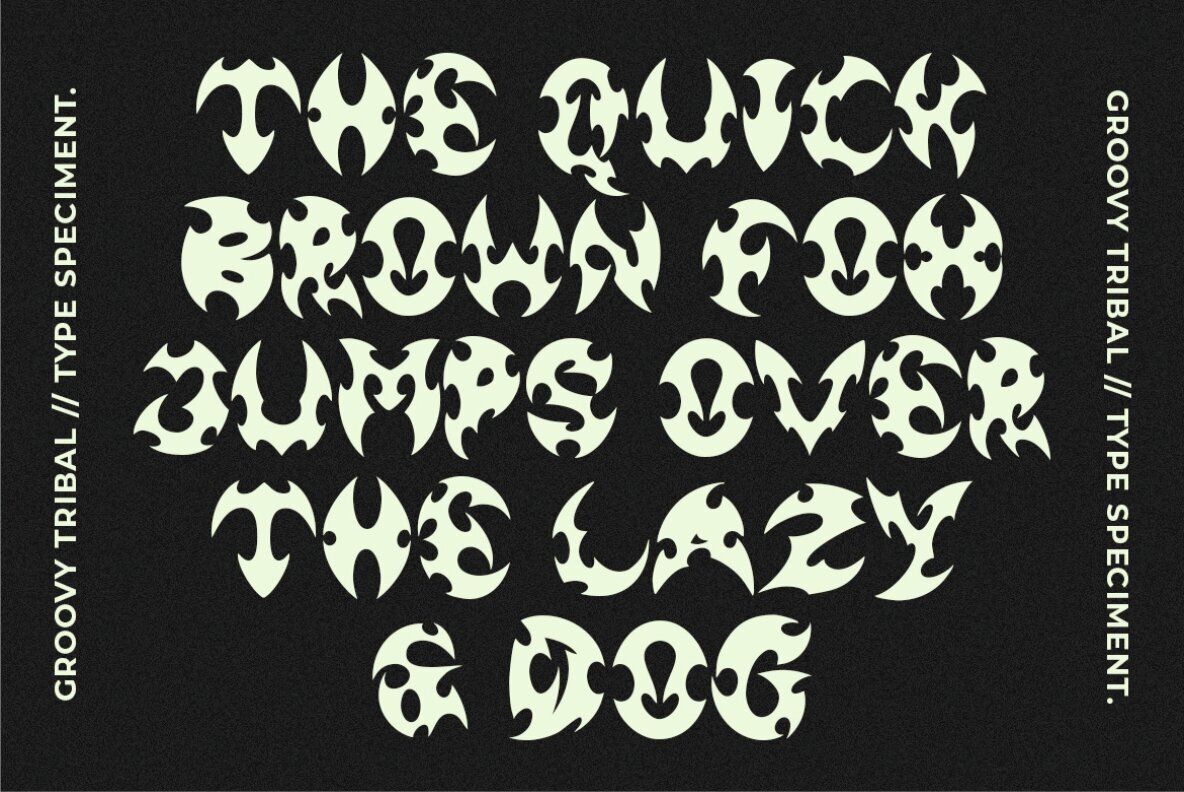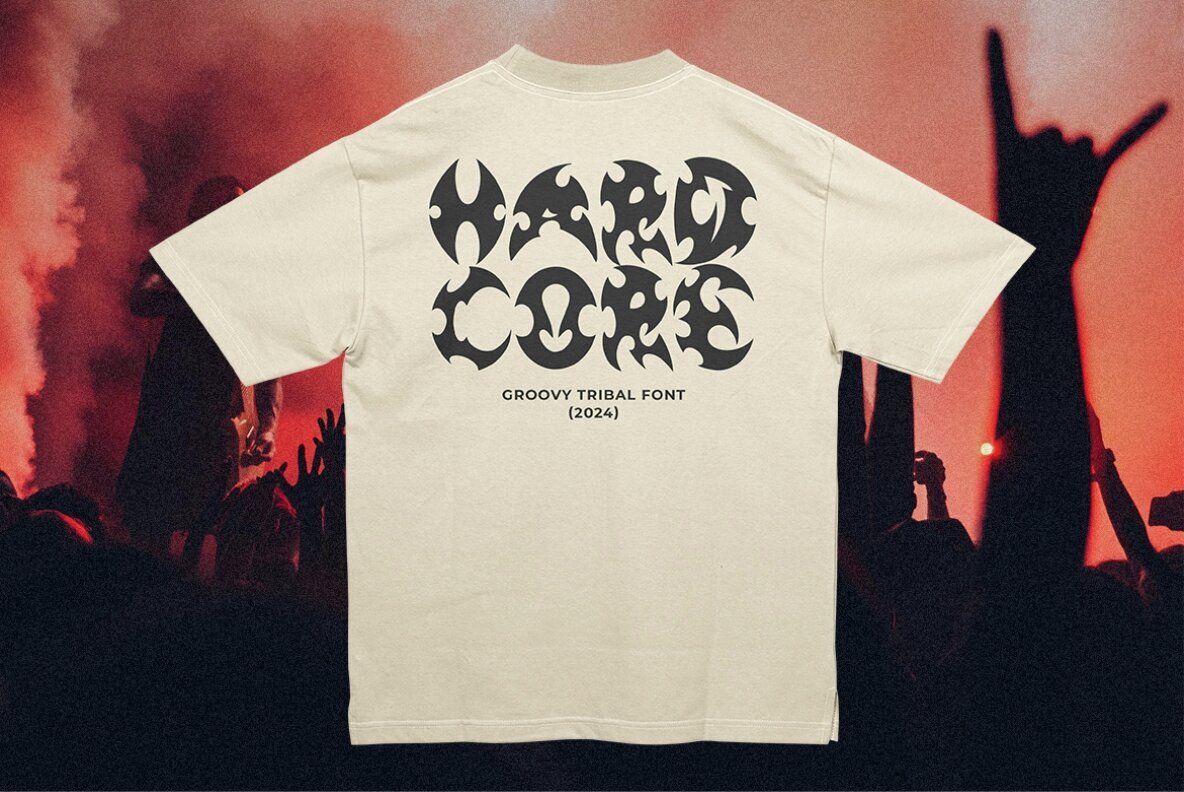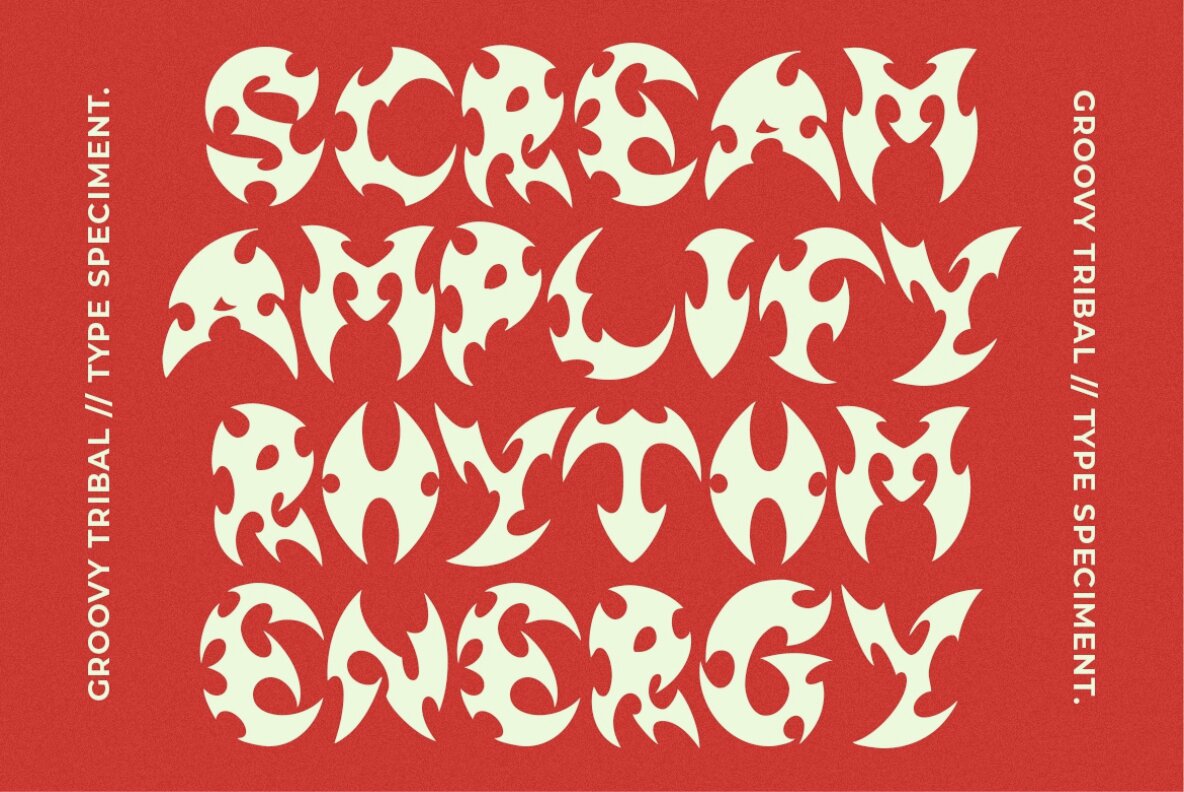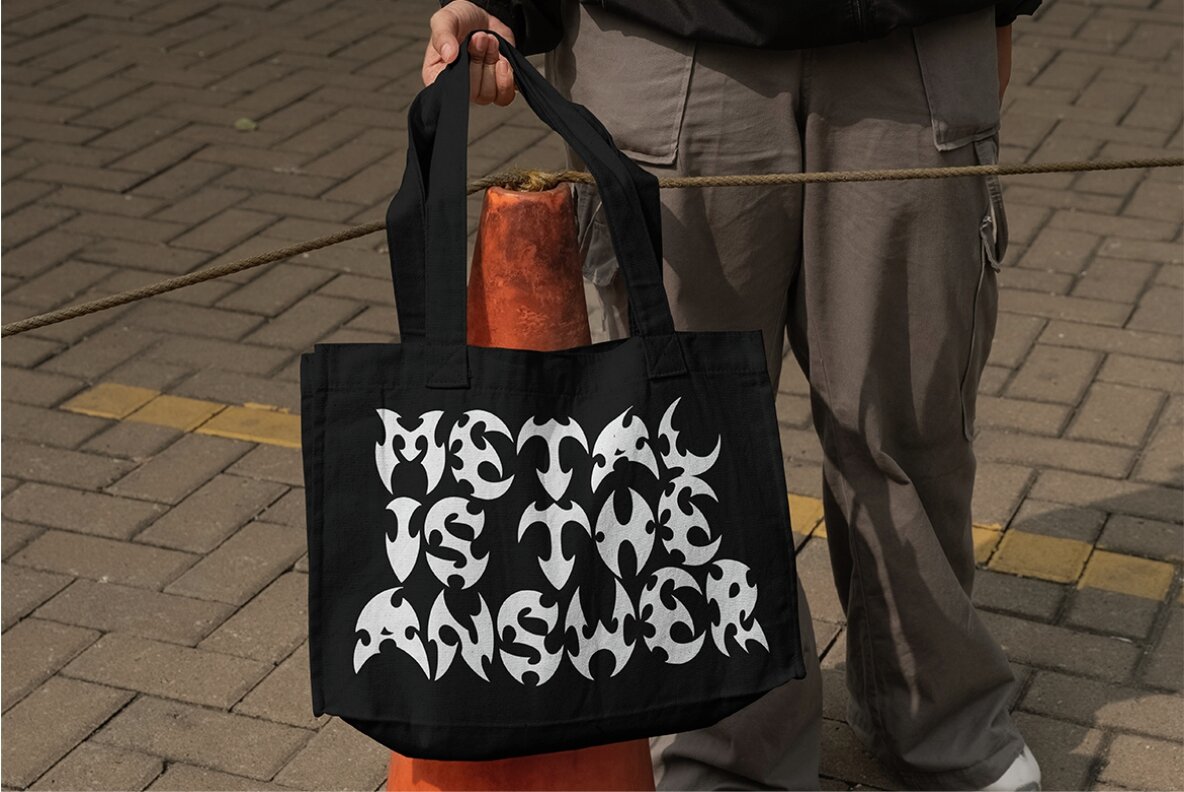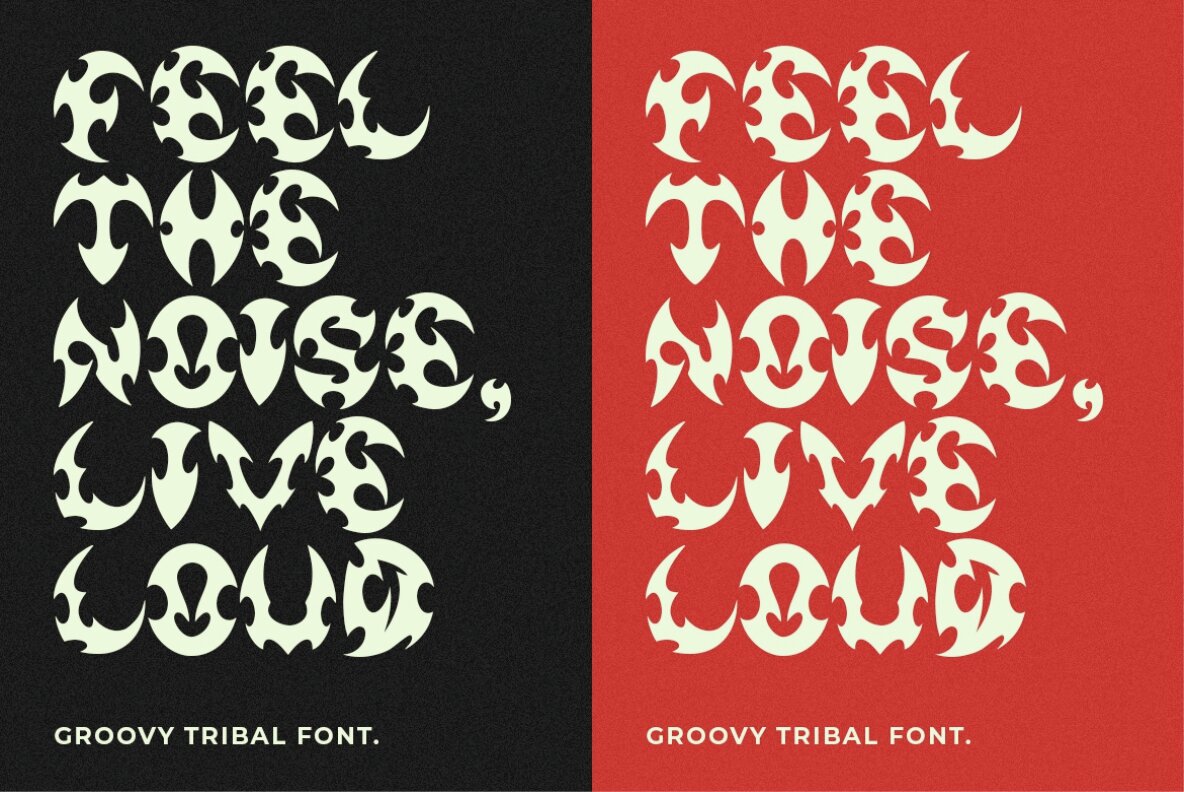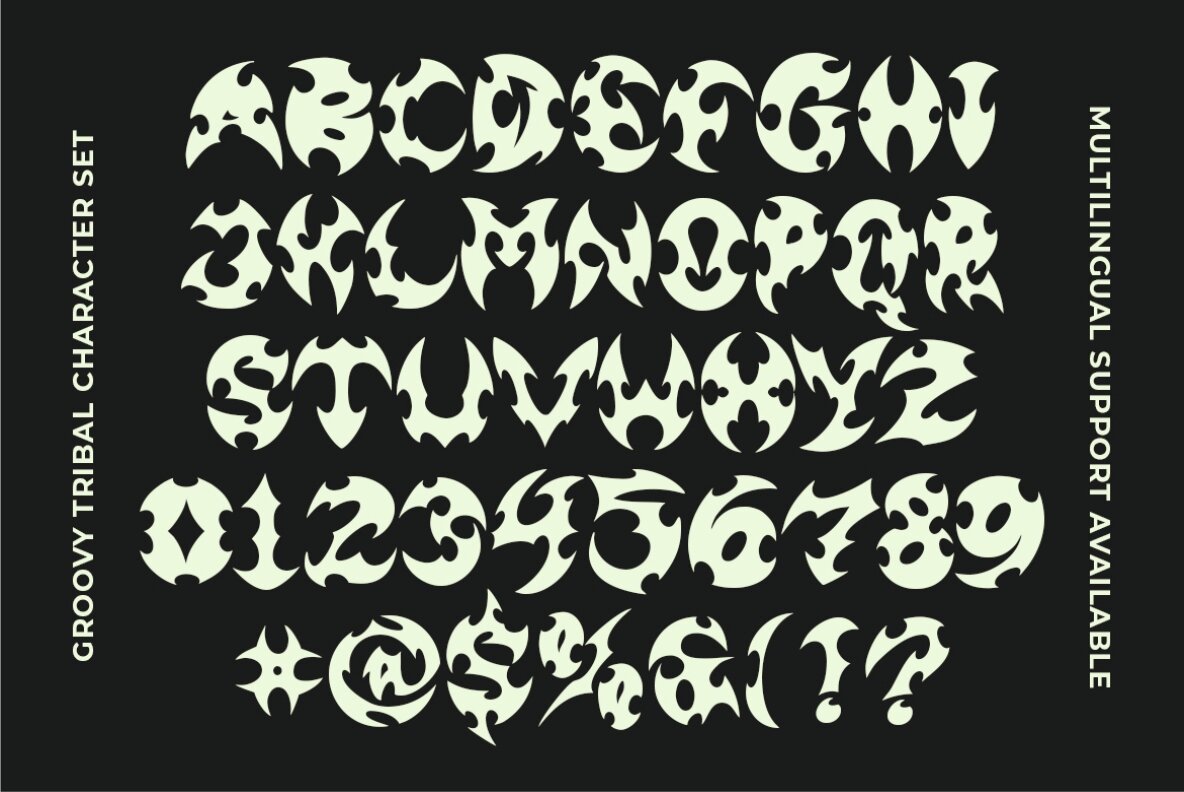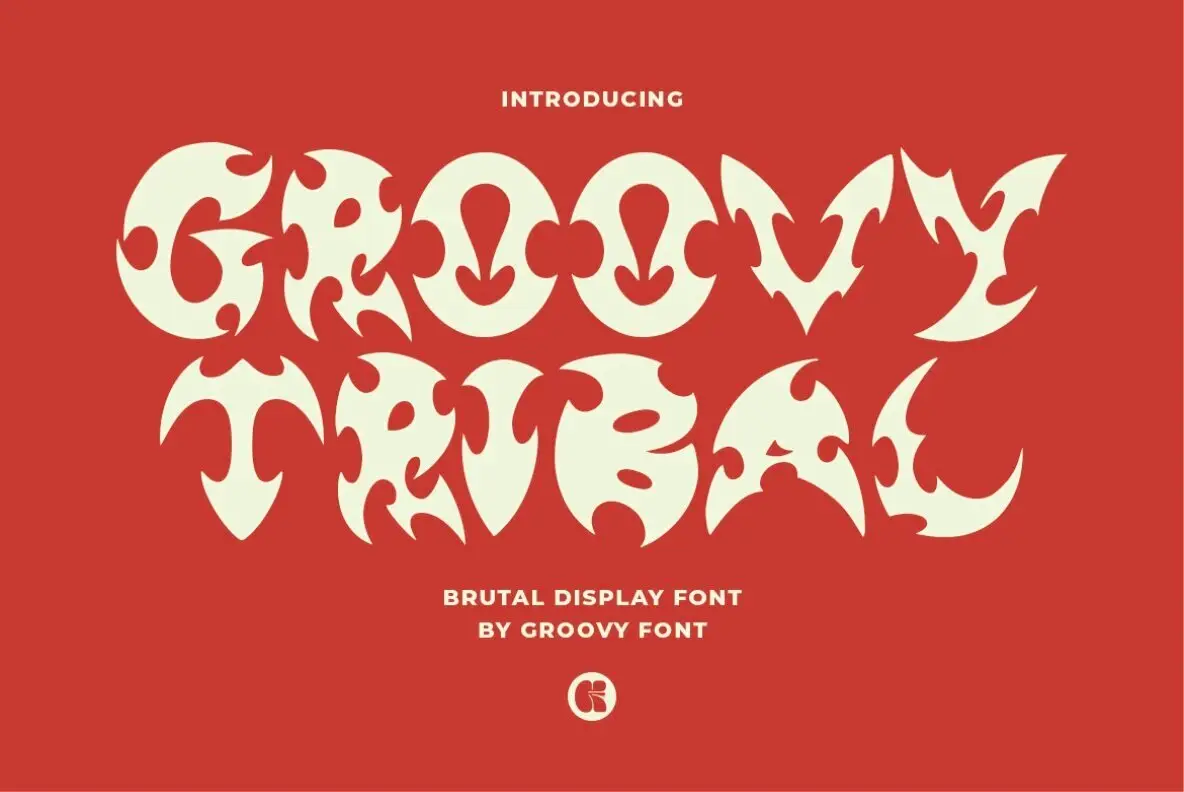
Groovy Tribal is a dynamic brutal display font characterized by its bold and captivating design. Its eccentric and spirited nature makes it perfect for projects that demand a strong and daring visual statement. Whether used for posters, banners, or album covers, Groovy Tribal offers a fierce aesthetic that commands attention, blazing with the intensity of fire.
This font includes a full set of uppercase and lowercase letters, numerals, punctuation, and multilingual support, ensuring versatility for various design needs. Ideal for designers seeking a font that adds boldness and impactful presence to their work, Groovy Tribal helps create standout visuals that leave a lasting impression.